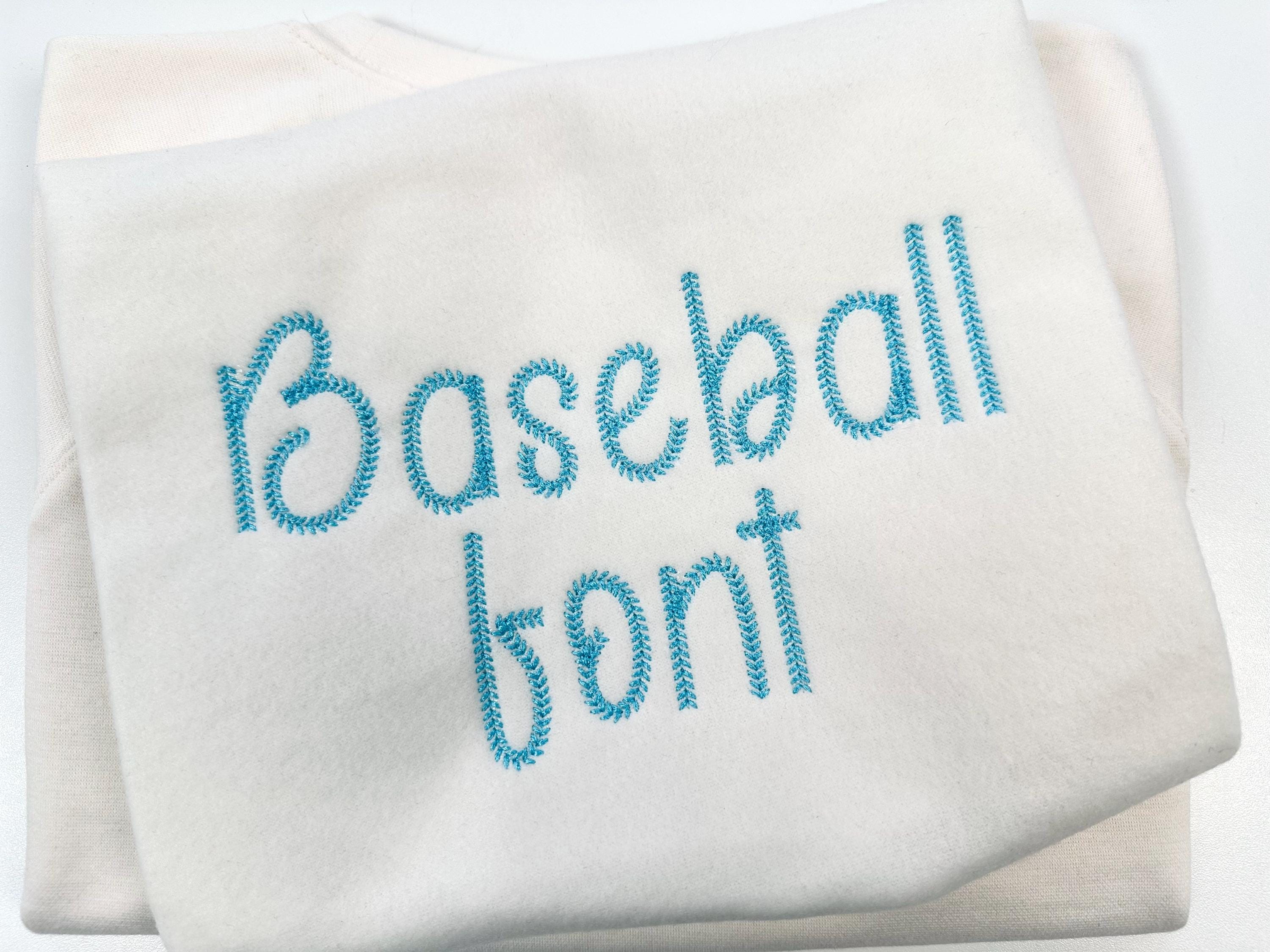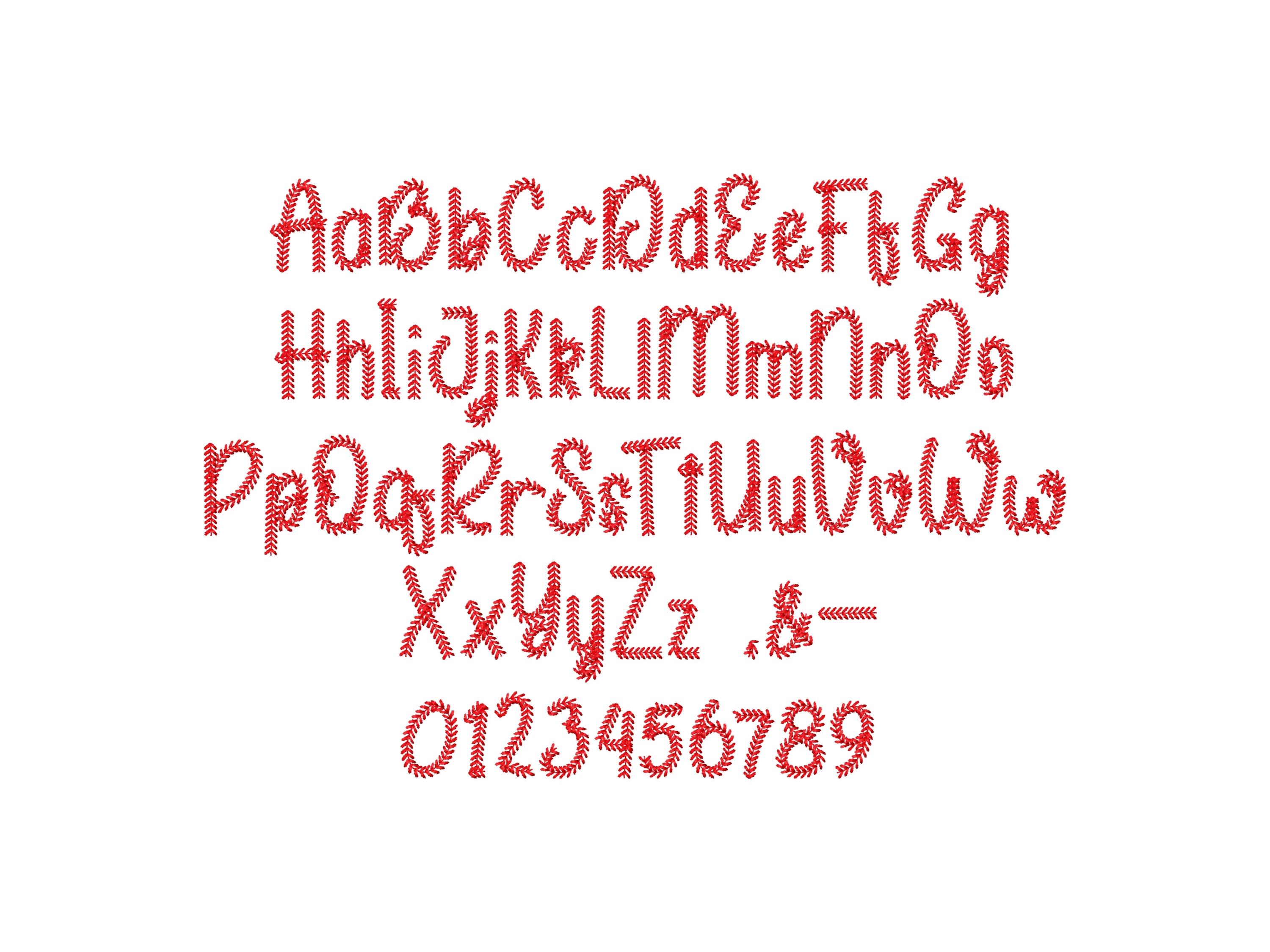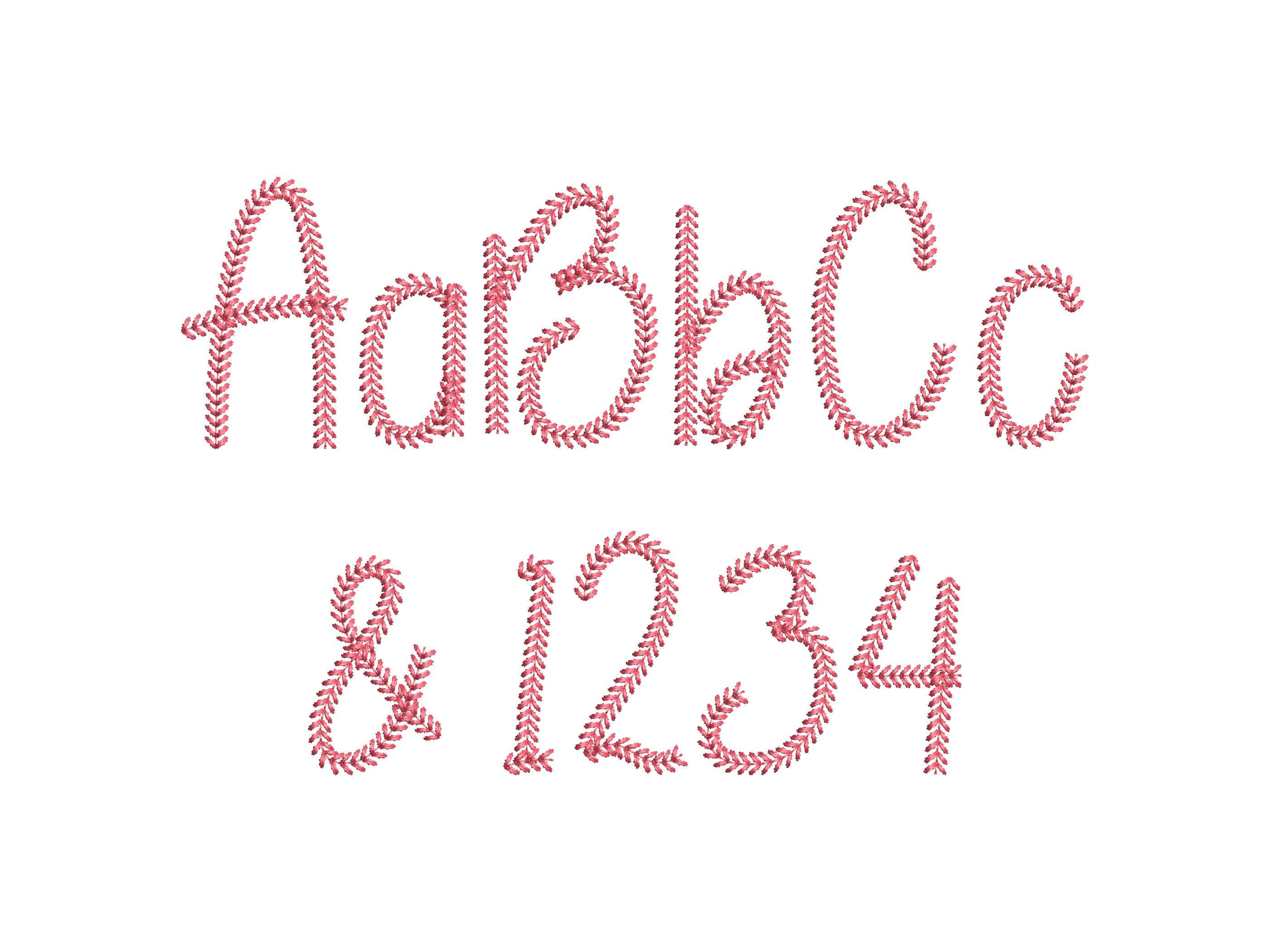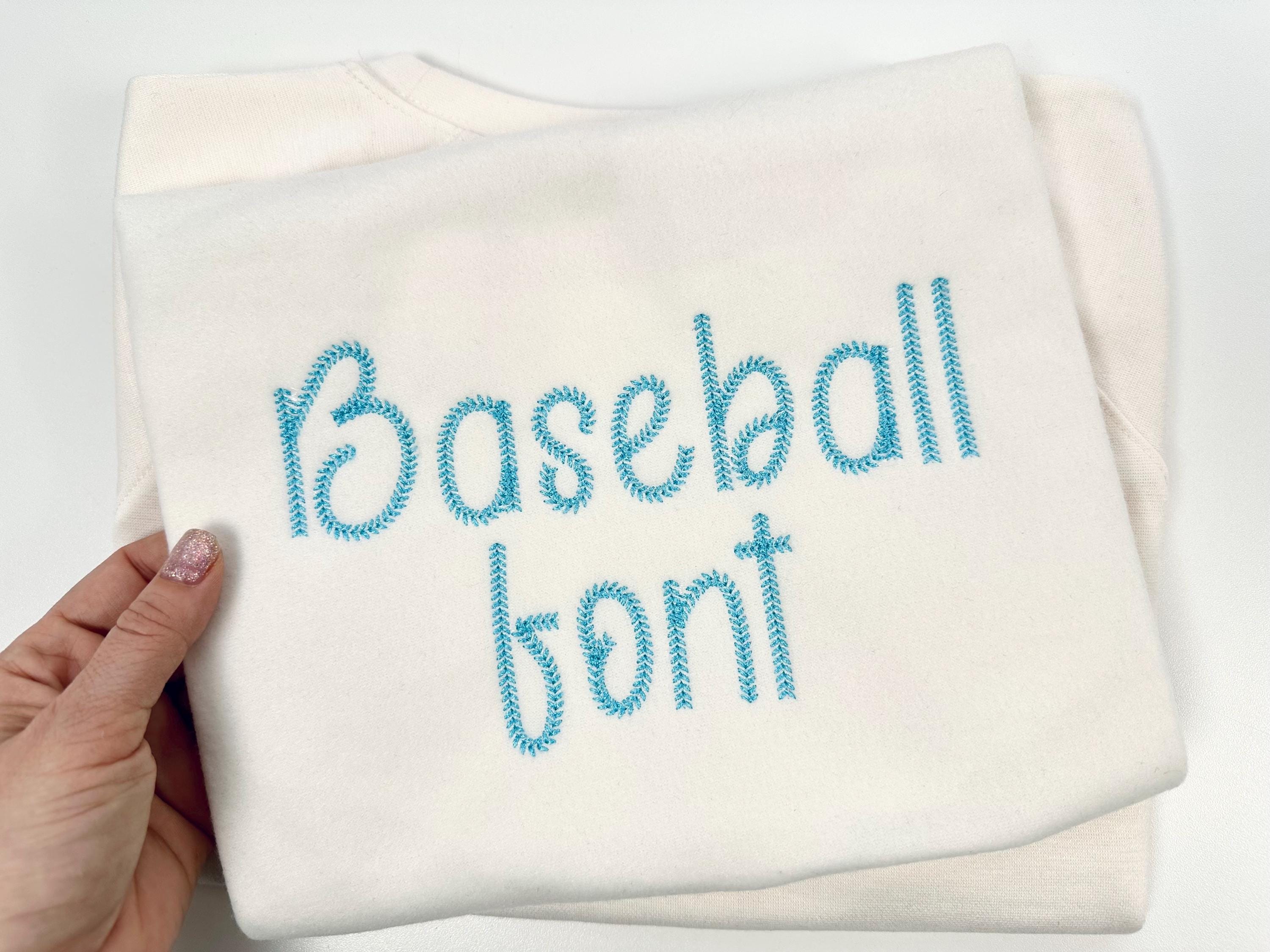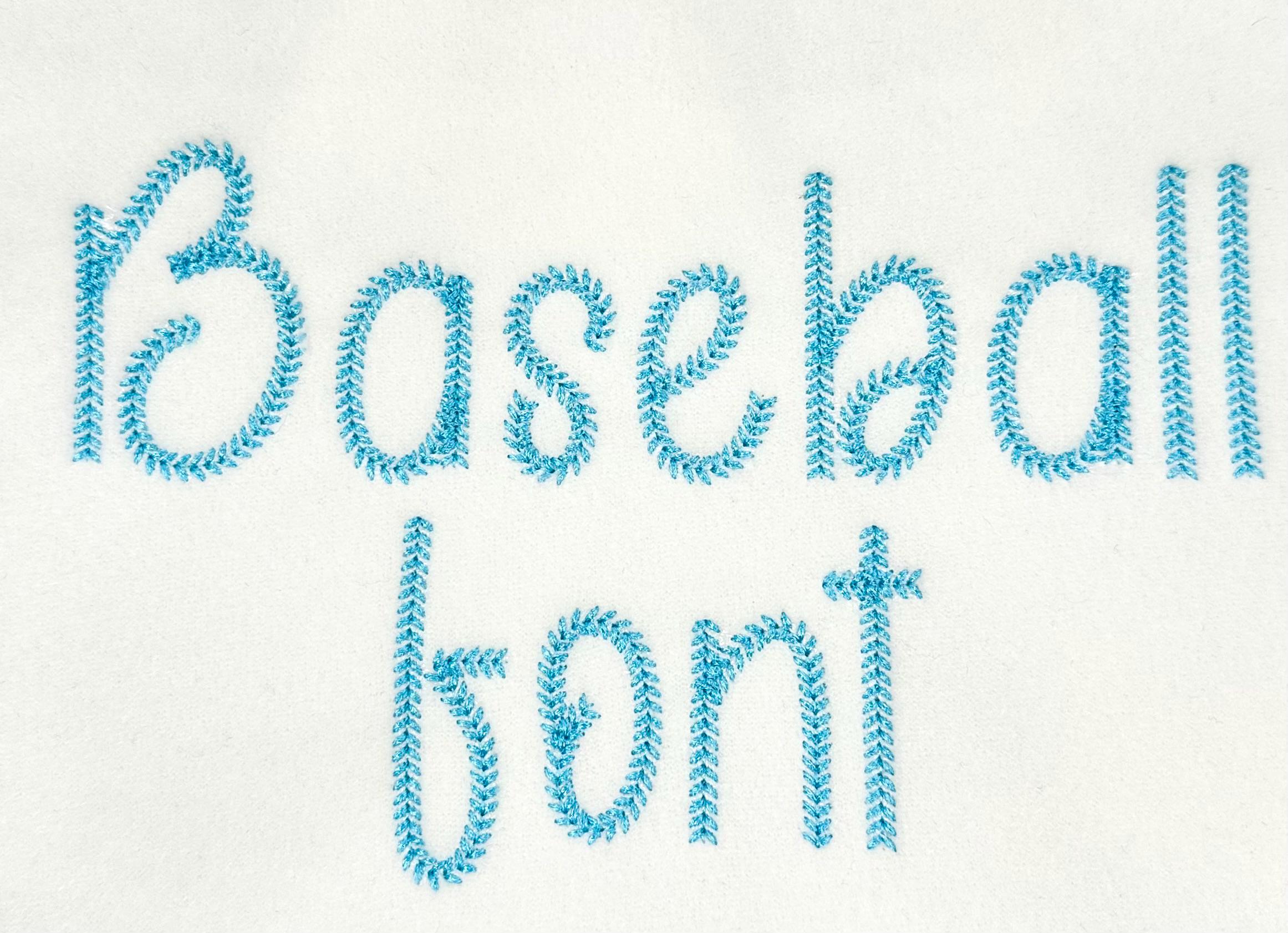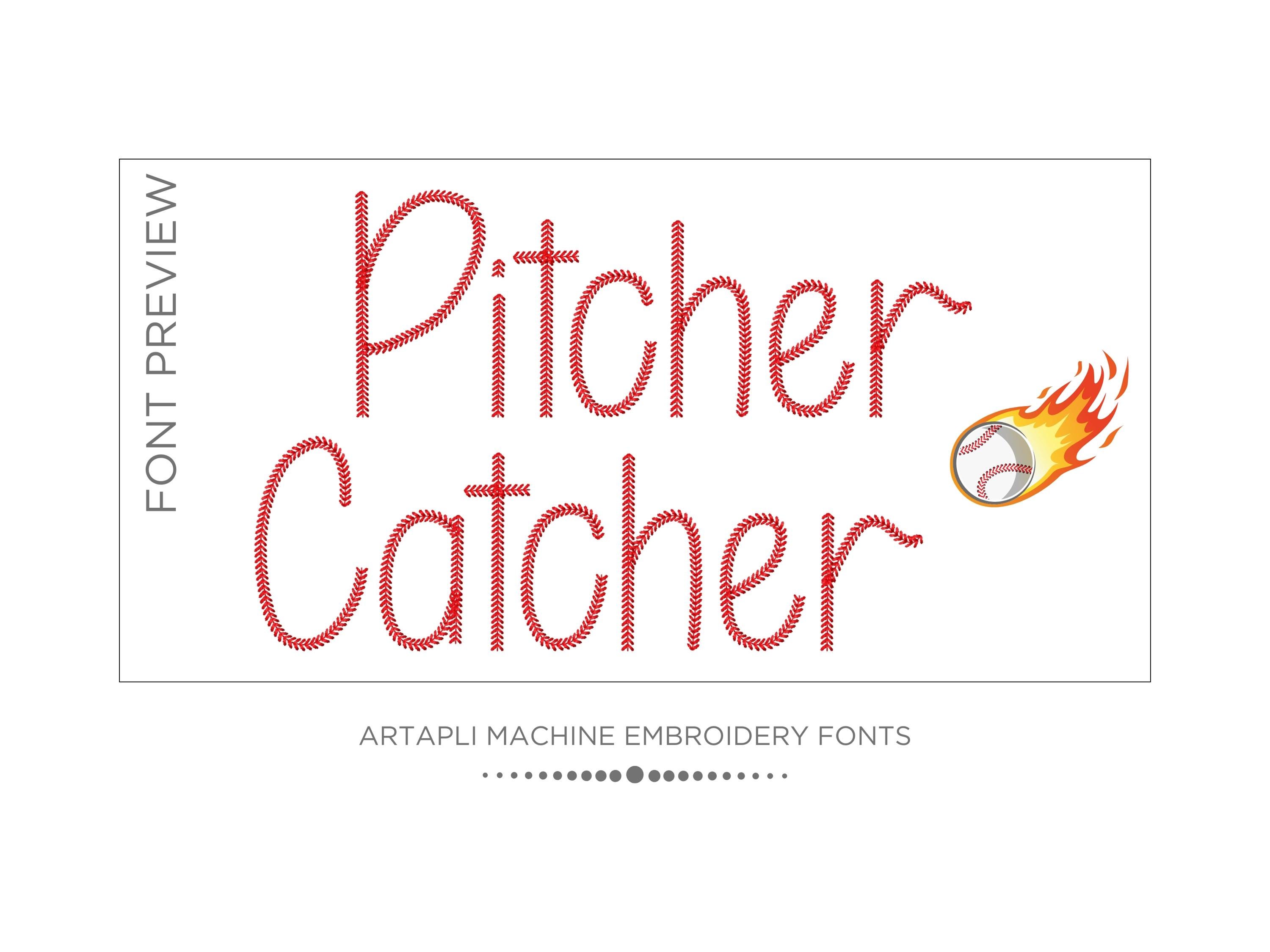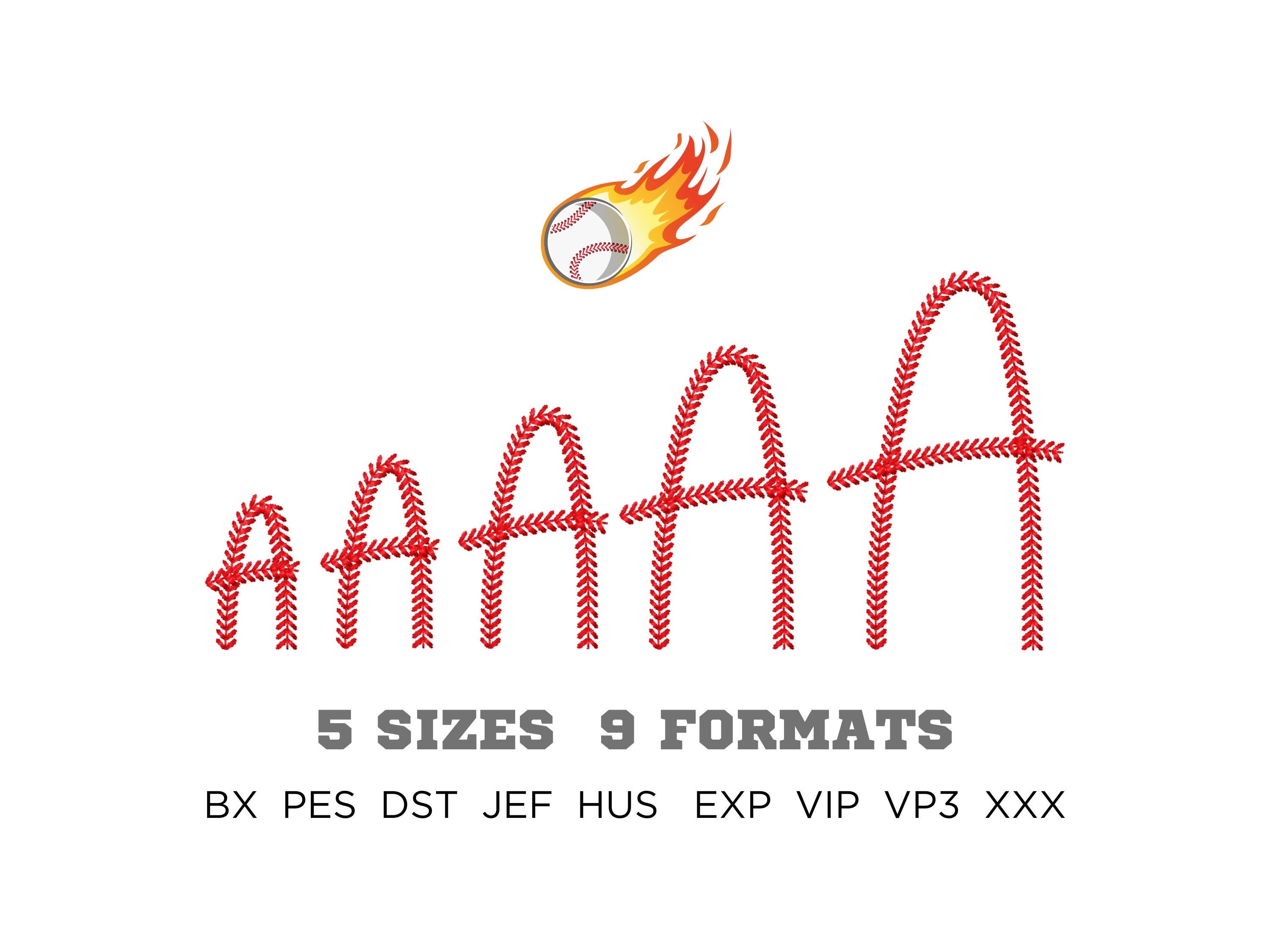
Baseball stitch FONT awesome sports stitch handwritten alphabet letters numbers machine embroidery designs kids monogram sizes 1.5 to 3.6in
Entire alphabet uppercase and lowercase letters, numbers, and punctuation.